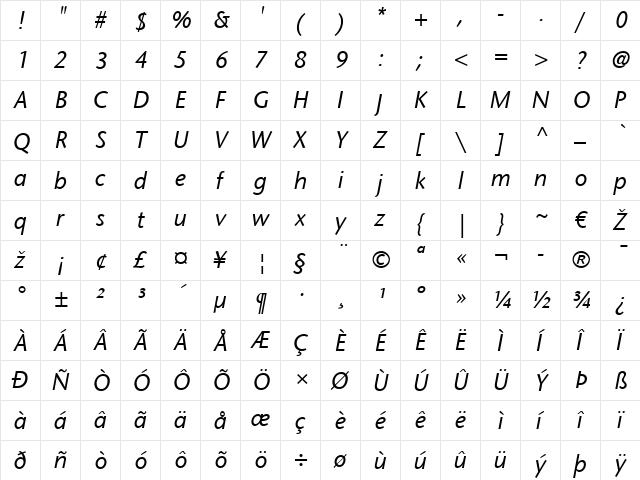
StoneSans LT Italic
Design Context for StoneSans LT Typeface
StoneSans LT is a composed and adaptable typeface that performs quietly and consistently across a wide range of design contexts. Its italic angle brings a sense of urgency and motion to the letterforms. Its slender proportions lend an understated elegance to any composition.
Pro Tip: Try StoneSans LT for annotation and caption copy alongside an upright companion — the contrast in angle creates a dynamic but ordered typographic system.